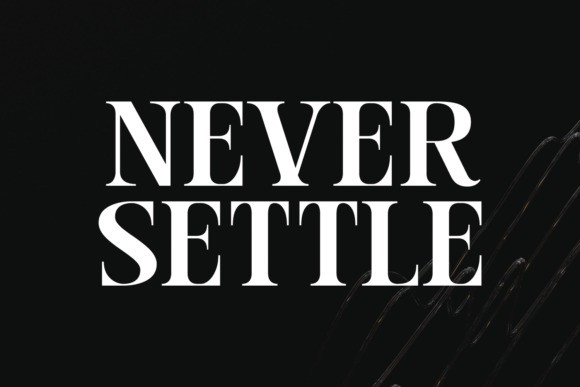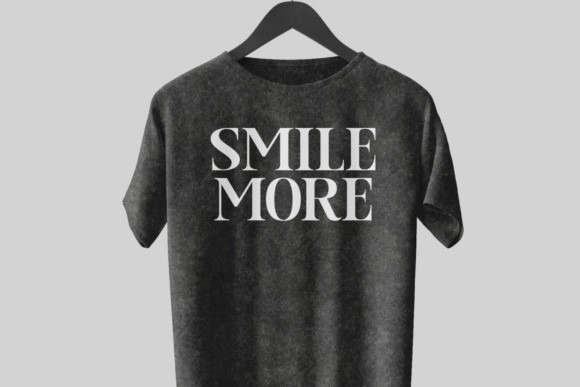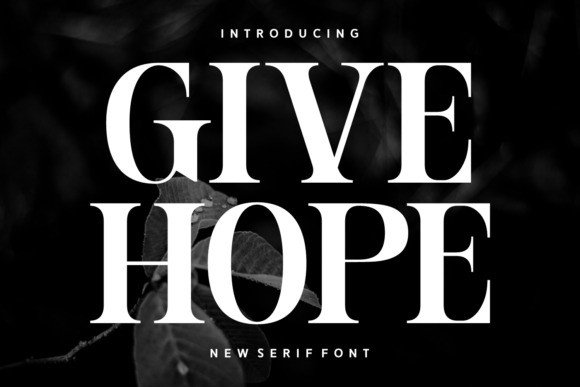
Give Hope Font
Give Hope Font a new serif font. The dramatic and elegant visual style complements the font’s classic letterforms and inspirational name.